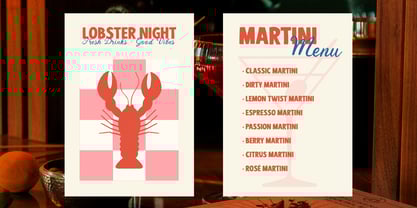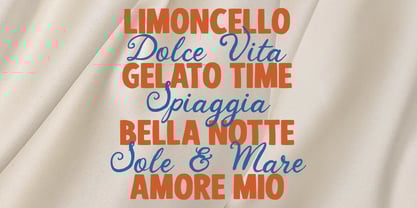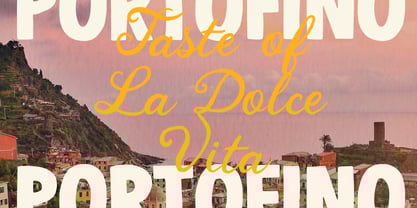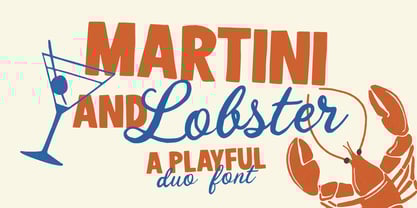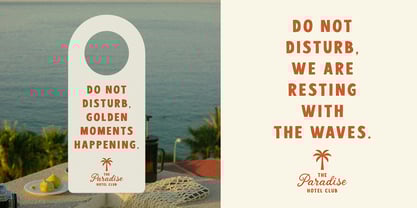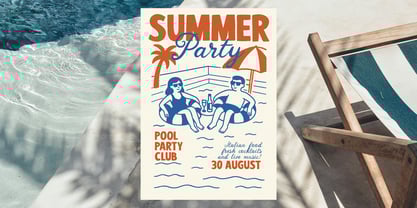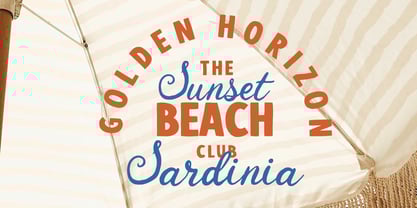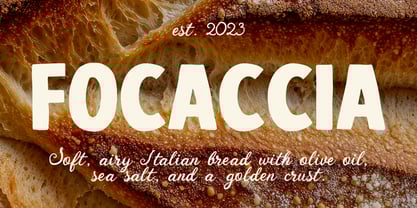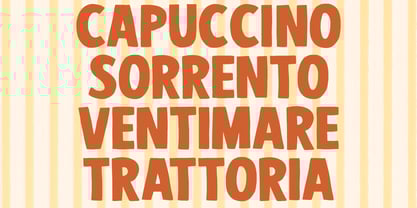
Martini and Lobster
The Martini and Lobster Font Family was designed by Daria Cherniackova and published by Bilberry Create. Martini and Lobster contains 2 styles and family package options.
Martini & Lobster is a fun and versatile duo font that combines bold retro sans with a smooth handwritten script. This playful pairing brings an instant touch of personality and charm, making it perfect for eye-catching designs with a relaxed, stylish vibe.
With its mix of strong headlines and elegant accents, Martini & Lobster works beautifully for posters, café and bar menus, summer collections, packaging, logos, and social media graphics. Whether you’re designing for hospitality, fashion, or lifestyle projects, this font duo adds a fresh and memorable look. Bring the spirit of cocktails, seaside nights, and vintage flair into your work with Martini & Lobster — a font made to stand out.